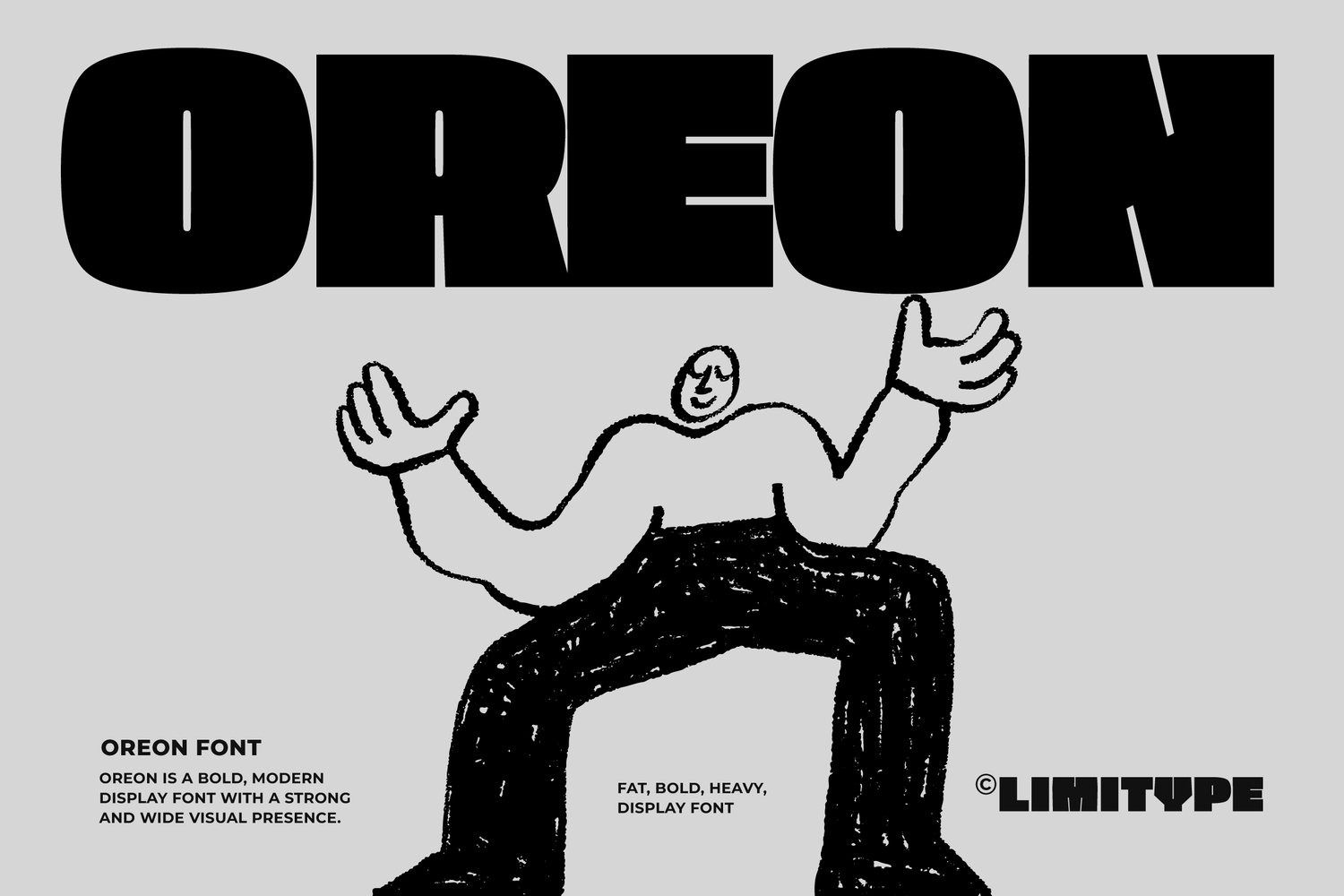
Oreon Font
Oreon Font is a distinctive and expressive font crafted to bring personality, structure, and creative energy into your projects. Oreon is a modern display typeface featuring strong, consistent strokes and a wide visual presence, designed to deliver high impact and excellent readability. This font is ideal for headlines, main titles, logos, branding, product packaging, posters, and a wide range of commercial design applications. Its solid, well-balanced letterforms communicate messages with clarity, confidence, and professionalism, ensuring strong recognition across both print and digital media.